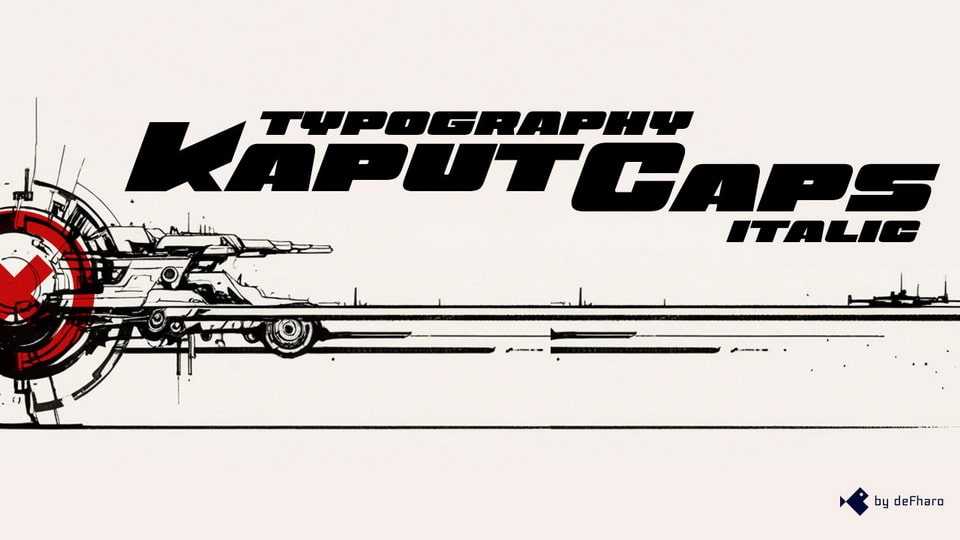
Download Kaput Black Italic font, a unique sans serif typeface with a rounded finish on the outside, and combining curves with sharp angles on the inside, heavy and made in capitals.
Designer: Fernando Haro